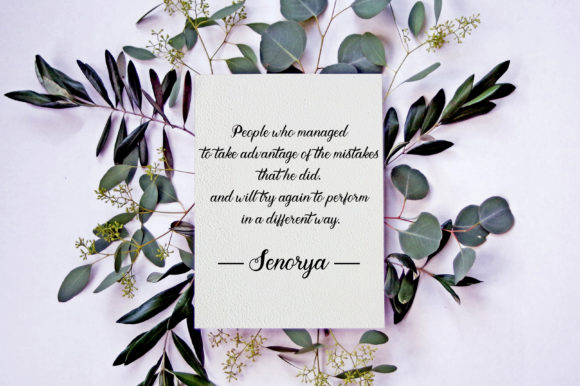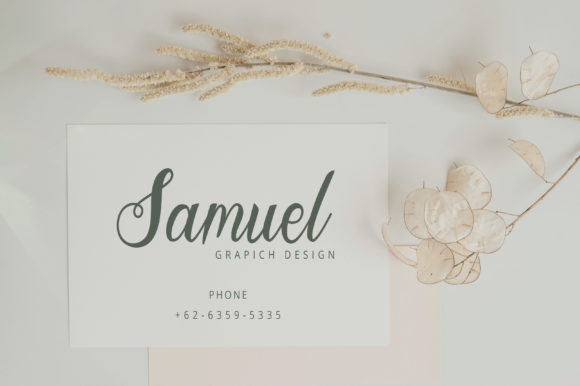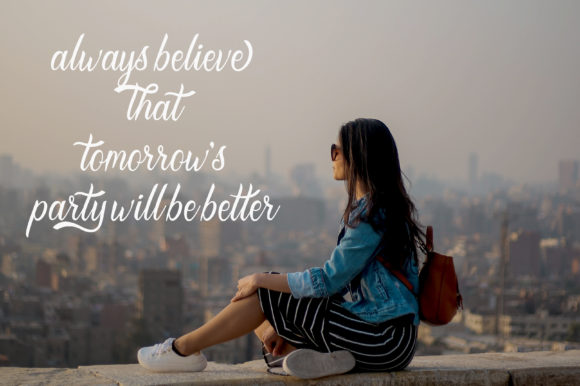
Introduction to Aurelius Font
Aurelius is a stunning handwritten font featuring an elegant touch.
This typeface is perfect for your favorite projects such as invitation cards, t-shirt designs, branding, website fonts, product labels, packaging designs, and so much more .
Key Features of Aurelius Font
Why Choose Aurelius Font?
Aurelius Font offers exceptional quality and versatility, making it a valuable addition to your design toolkit. Whether you’re creating for personal projects or commercial use, Aurelius Font delivers professional results.